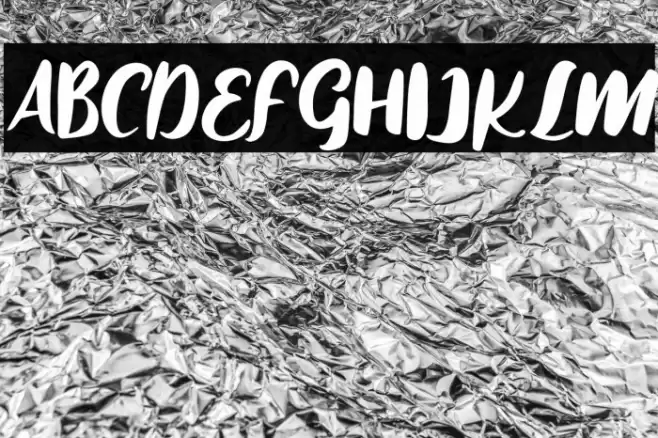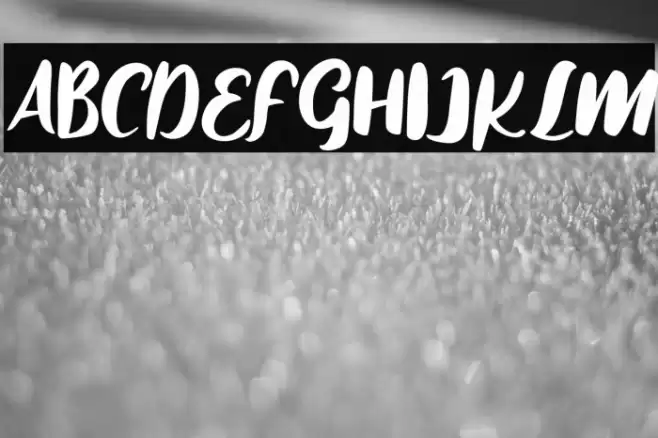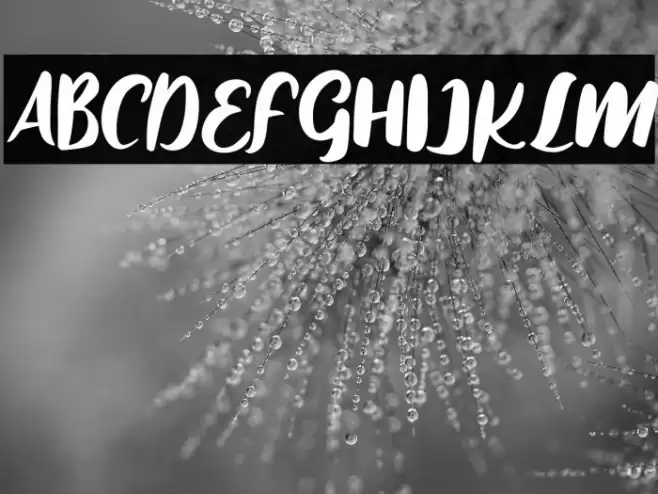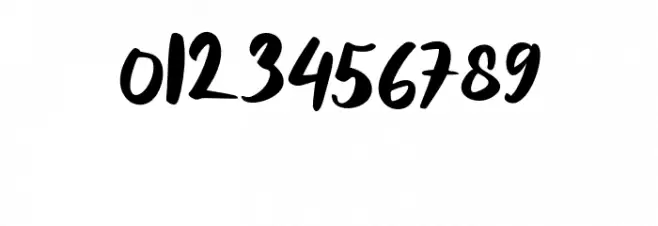
WhenPlantsFREE Font
WhenPlantsFREE Description
This font features a bold and expressive script style, characterized by its flowing, cursive letters that exude a sense of elegance and dynamism. The uppercase letters are bold and slightly slanted, with a playful yet sophisticated flair. The lowercase letters maintain a consistent flow, with some characters featuring unique loops and swashes that add to the font's charm. The numbers are equally stylized, maintaining the overall aesthetic of the font. This font is ideal for projects that require a personal touch, such as invitations, greeting cards, or branding materials.
A bold, expressive script font with flowing cursive letters from Uncategorized fonts.
- Font: WhenPlantsFREE
- Proposed Projects: Ideal for invitations, greeting cards, branding, and decorative projects.
- Use Case: Logos, Headlines, Decorative text